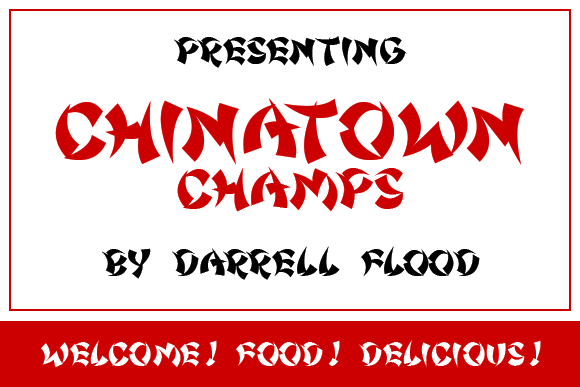
Introduction to Chinatown Champs Font Font
Fonts play a crucial role in design, and the Chinatown Champs Font font is a typeface that brings both character and versatility to any project. Whether you’re working on a branding project, a website, or a print design, the Chinatown Champs Font font offers a unique style that can elevate your work.
Chinatown Champs is a stunning ink-stroke style font in a traditional Chinese style.
Perfect for Asian themes and food menus .
Key Features of Chinatown Champs Font Font
Why Choose Chinatown Champs Font Font?
The Chinatown Champs Font font is more than just a typeface – it’s a design tool that helps you communicate your message with style and clarity. Its unique character set and versatile design make it suitable for a wide range of applications, from elegant invitations to bold headlines.
With its carefully crafted letterforms and balanced proportions, the Chinatown Champs Font font ensures readability and visual appeal across all mediums.
What makes Chinatown Champs Font font special?
The Chinatown Champs Font font stands out with its unique design, exceptional readability, and versatility across various design applications.